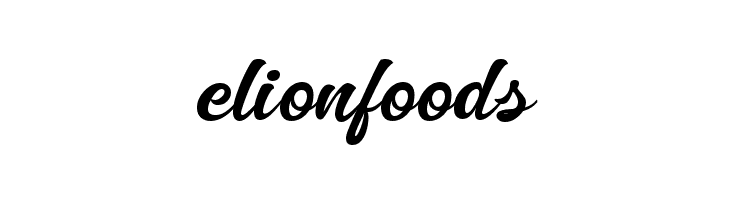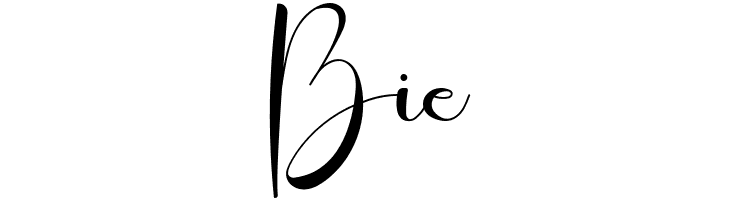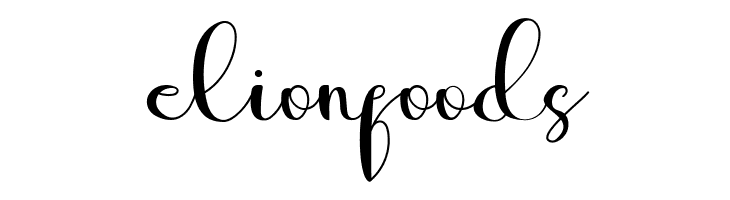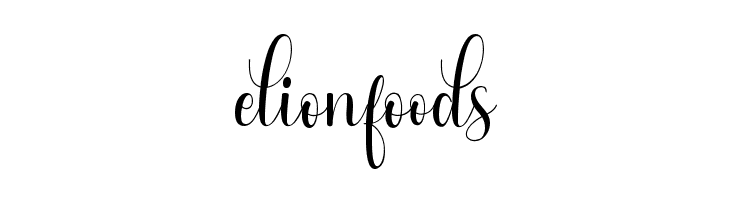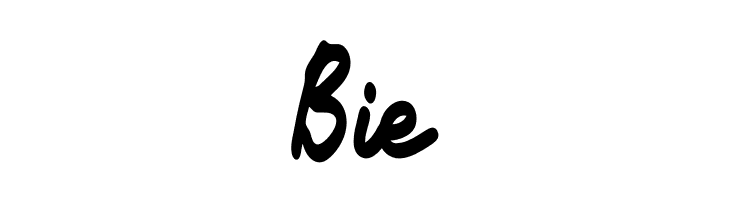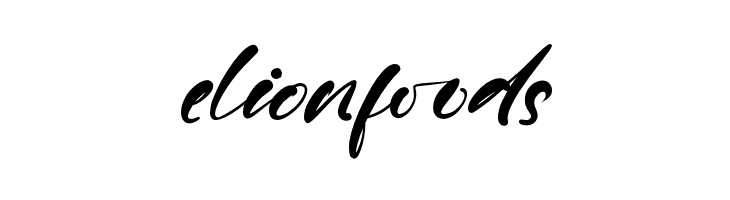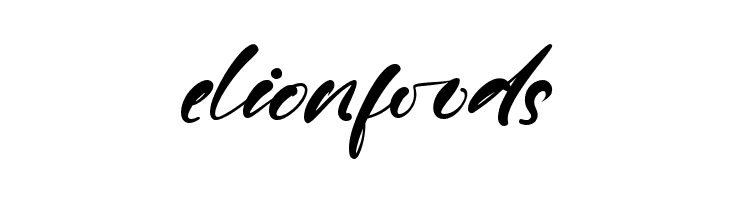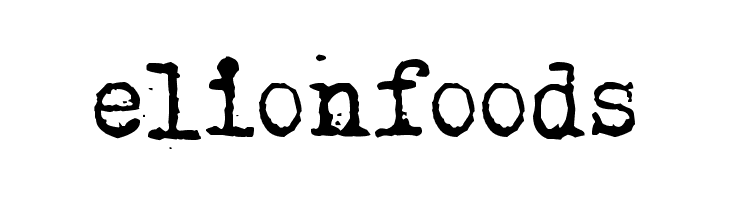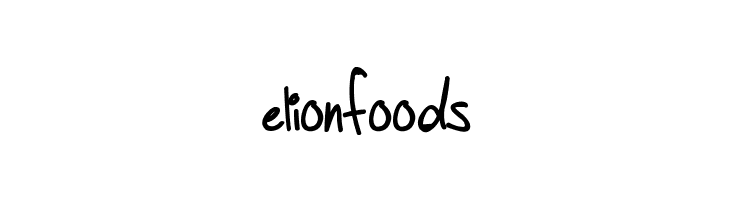
A distressed, vintage typewriter-style font with a rugged, ink-splotched appearance.
An elegant script font with graceful curves and sophisticated style.
A playful, handwritten font with a casual and whimsical style.
A dynamic, handwritten font with bold, sweeping strokes and artistic flair.
A bold, cursive script font with dynamic and expressive strokes.
A bold, flowing script font with elegant curves and interconnected letters.
An elegant, flowing script font with graceful cursive strokes.
A bold, handwritten script font with a smooth, flowing style.
An elegant and flowing script font with intricate loops and swashes.
A bold, geometric font with a futuristic and modular design.